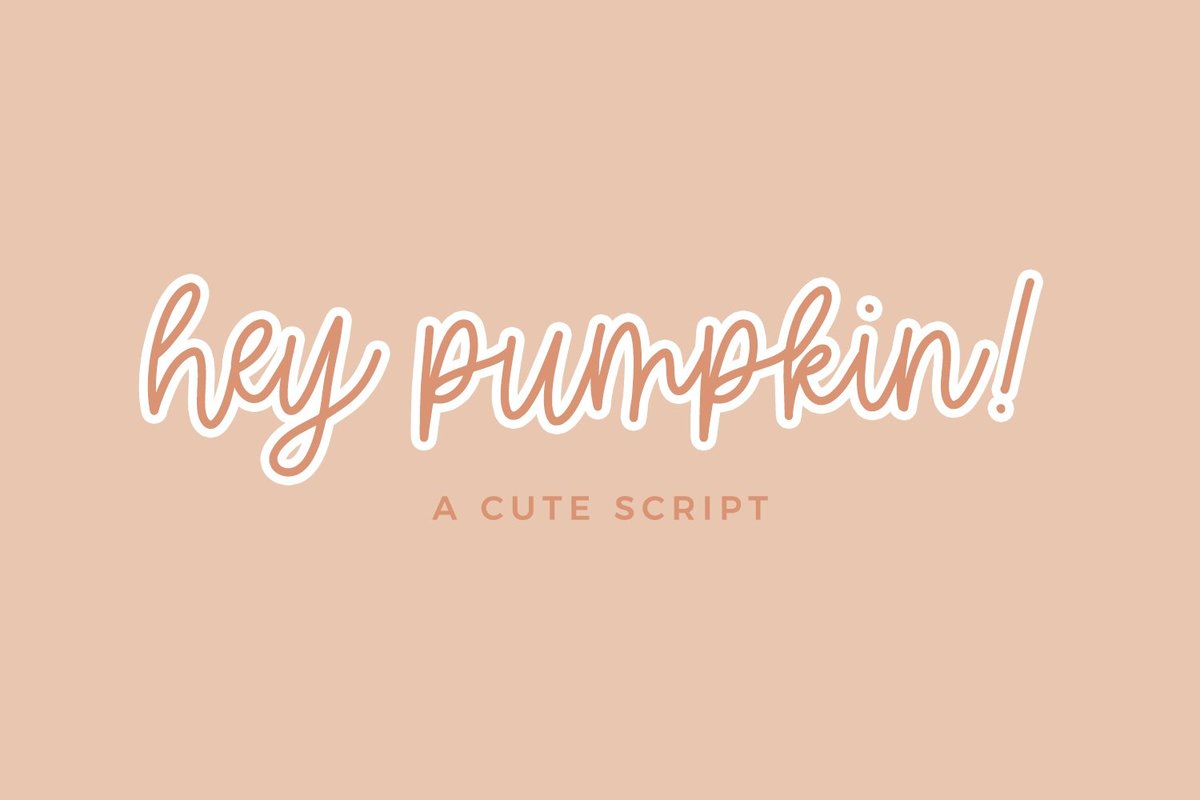
Posh Handwriting Font - Handwritten Fonts Download Premium Free Handwritten Fonts : Quillbacks script font is a modern handwriting calligraphy font.. Our handwritten fonts are an opportunity to address personal and loving issues. Originally made in 2020 by nihstudio font. Do you like handwriting fonts? Browse by alphabetical listing, by style, by author or by popularity. The best collection of free handwriting fonts on the internet!!
Actually, the least thing you think of when you want to. A repository create by andrew for handwriting like font. The victor handwriting font has a truly handwritten feel; Fonts of this category «handwritten fonts». Do you like handwriting fonts?
Originally made in 2020 by nihstudio font. The so posh font has been downloaded 9,261 times. In the age of social media and smartphones, probably, there are people, who have never heard about handwritten letters. Recent fonts top fonts designers submit a font. The tools used listed below : The best collection of free handwriting fonts on the internet!! A repository create by andrew for handwriting like font. Writing fonts include both printing and cursive styles and is less artistic than formal calligraphy.
Handwriting fonts bring a new artistry to fonts, as they are actually based on people's individual handwriting. Use them for anything but share the link with. Download and install free handwritten fonts of the best quality from free fonts and use on your own personal and business related design purposes. The best collection of free handwriting fonts on the internet!! Browse and download handwriting fonts and generate images from custom text with handwriting fonts. Fonts of this category «handwritten fonts». Actually, the least thing you think of when you want to. The uneven letters (with bold and thinner letters) it looks as though someone dipped a quill in ink and scratched the font onto a paper. Well,, i'm back with complete and pure tutorial for making your hand writing your font to use in word, excel, etc. Then i upload the fonts here so you can download them all for free! Writing fonts include both printing and cursive styles and is less artistic than formal calligraphy. The victor handwriting font has a truly handwritten feel; Recent fonts top fonts designers submit a font.
This handwriting font is available in two styles: Well,, i'm back with complete and pure tutorial for making your hand writing your font to use in word, excel, etc. Browse a unique collection of the best handwritten fonts and thousands of free typefaces to download. Fonts of this category «handwritten fonts». Archive of freely downloadable fonts.
Actually, the least thing you think of when you want to. This handwriting font is available in two styles: Archive of freely downloadable fonts. The so posh font has been downloaded 9,261 times. Fonts of this category «handwritten fonts». Quillbacks script font is a modern handwriting calligraphy font. As the name suggests, handwritten fonts are fonts that look like they were written by hand, usually with a pen or marker. Ready to personalize and share in facebook and twitter.
Our handwritten fonts are an opportunity to address personal and loving issues.
The style of this font are casual royalister signature font is a signature handwriting font. Recent fonts top fonts designers submit a font. Craft a personalized note with one of these. Do you like handwriting fonts? Browse a unique collection of the best handwritten fonts and thousands of free typefaces to download. This is where i turn your submitted handwriting samples into fonts. Handwriting fonts are written with a pen, pencil, or marker. Fonts of this category «handwritten fonts». Actually, the least thing you think of when you want to. Total in section 693 of the fonts available to free this page lists the handwritten fonts, which you can download absolutely free of charge and without. Ready to personalize and share in facebook and twitter. Then i upload the fonts here so you can download them all for free! Within that broad category you'll find a range of styles that reflects the variations.
Originally made in 2020 by nihstudio font. As the name suggests, handwritten fonts are fonts that look like they were written by hand, usually with a pen or marker. The so posh font has been downloaded 9,261 times. Download free handwritten fonts for commercial and personal use. Recent fonts top fonts designers submit a font.
Then i upload the fonts here so you can download them all for free! Handwriting fonts bring a new artistry to fonts, as they are actually based on people's individual handwriting. The style of this font are casual royalister signature font is a signature handwriting font. Browse and download handwriting fonts and generate images from custom text with handwriting fonts. Within that broad category you'll find a range of styles that reflects the variations. Browse by alphabetical listing, by style, by author or by popularity. Do you like handwriting fonts? Use them for anything but share the link with.
Then i upload the fonts here so you can download them all for free!
Actually, the least thing you think of when you want to. Archive of freely downloadable fonts. The essentially endless variations provide an opportunity for real individualization. The uneven letters (with bold and thinner letters) it looks as though someone dipped a quill in ink and scratched the font onto a paper. Within that broad category you'll find a range of styles that reflects the variations. Total in section 693 of the fonts available to free this page lists the handwritten fonts, which you can download absolutely free of charge and without. Our handwritten fonts are an opportunity to address personal and loving issues. Use them for anything but share the link with. The best collection of free handwriting fonts on the internet!! Writing fonts include both printing and cursive styles and is less artistic than formal calligraphy. The style of this font are casual royalister signature font is a signature handwriting font. Fonts of this category «handwritten fonts». Ready to personalize and share in facebook and twitter.